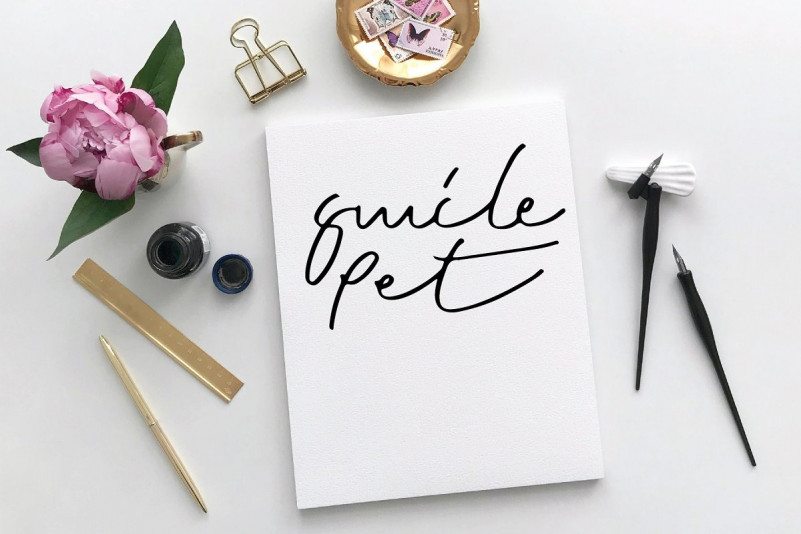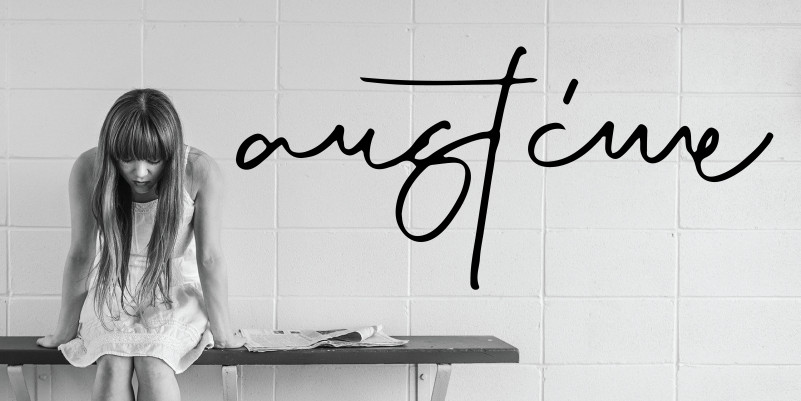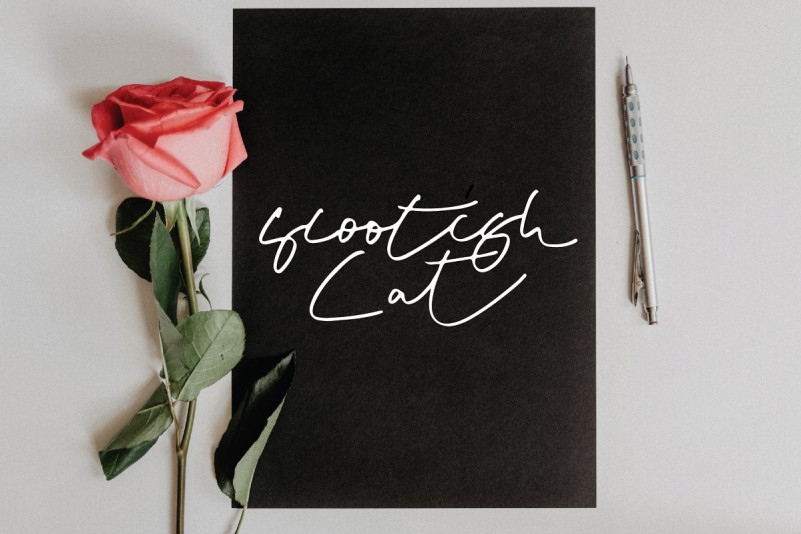
Scootish Handwritten Font
perfect for branding projects, logo, wedding designs, social media posts, advertisements, product packaging, product designs, label, photography, watermark, invitation, stationery and any projects that need handwriting taste.